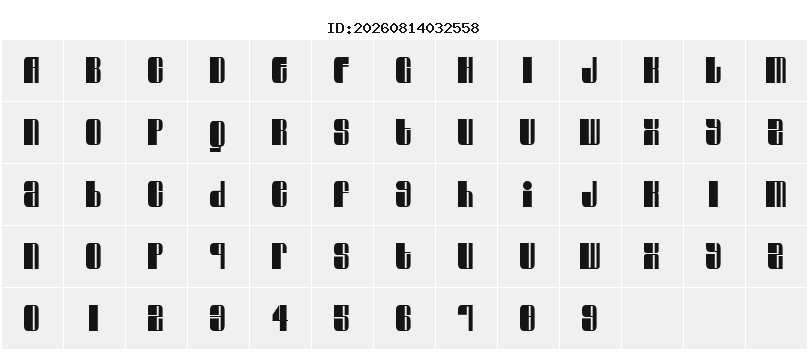
Swinger Preview
• Font Name: Swinger
• Full Font Name: Swinger
About Swinger.ttf
Swinger.ttf is a modern, elegant sans-serif font designed for ultimate readability and visual harmony. Perfect for branding, headlines, web design, and print materials.